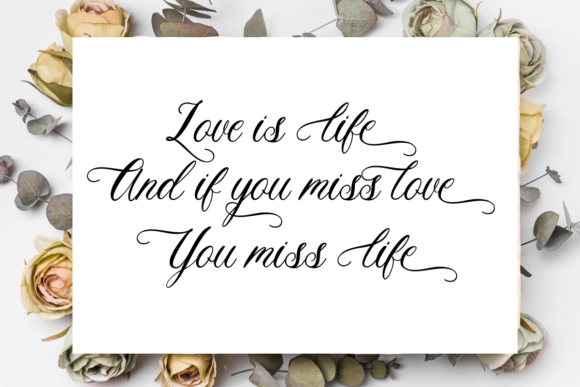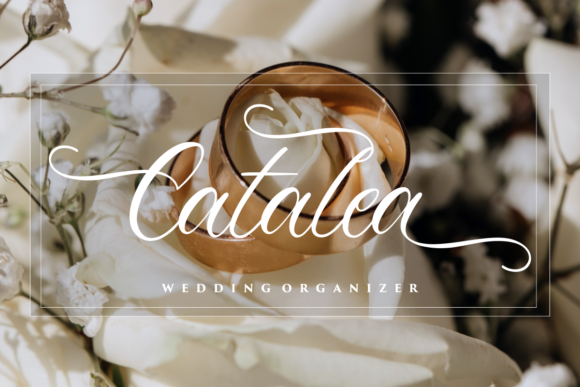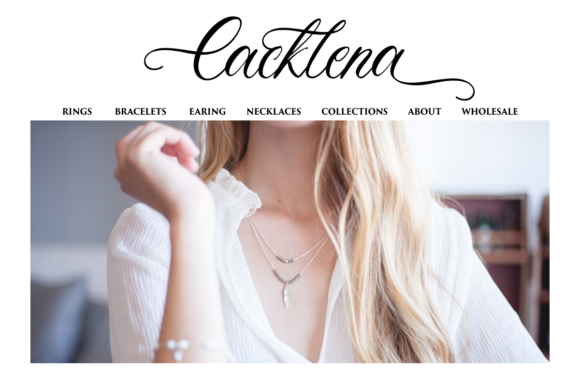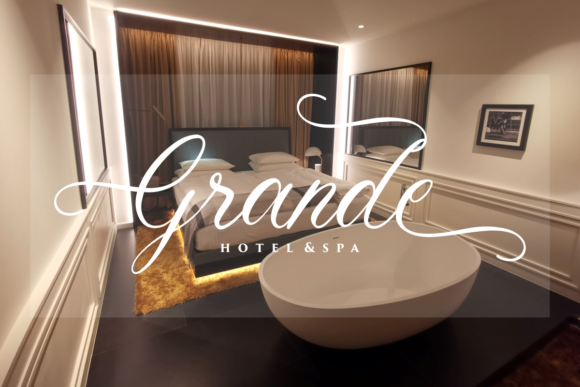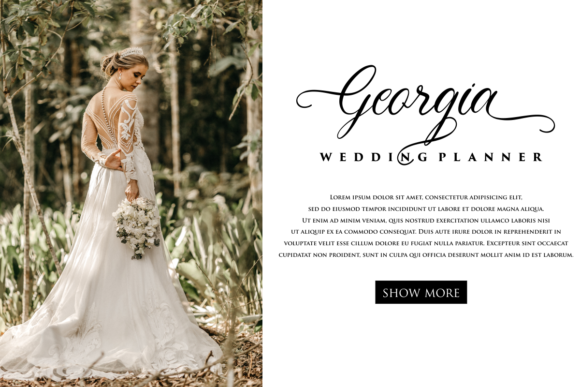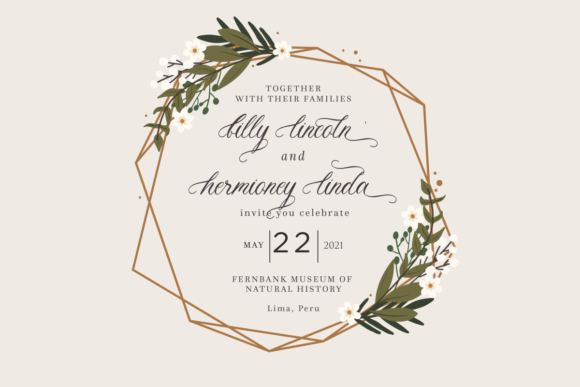
The Elusive Perfect Font: My Encounter with Chriselda
I’ll never forget the frustration of working on a design project, hours spent scrolling through font libraries, and yet, none seemed to fit the vibe I was going for. My client wanted something elegant, flowing, and delicate – a font that would make their brand stand out without overpowering it. That’s when I stumbled upon Chriselda, a beautiful handwritten font that has since become a staple in my design toolkit.
A First Impression: What I Love About Chriselda
Chriselda is a delicate, elegant, and flowing handwritten font that has won my heart with its beautiful and well-balanced characters. Here are a few things I love about it:
- ✨ Elegant and Refined: Chriselda exudes sophistication, making it perfect for high-end branding, wedding invitations, or luxury product packaging.
- ✅ Versatile: Its balanced design means it can be paired with a wide range of styles, from minimalist to ornate.
- 💡 PUA Encoded: Being PUA encoded means I can access all the glyphs and swashes easily, giving my designs that extra creative flair.
The Not-So-Perfect: A Few Quirks
No font is perfect, and Chriselda has a couple of minor limitations:
- ⚠️ Limited Use in Body Text: While Chriselda shines in headings and titles, its delicate nature might not be ideal for long body text.
- 🤔 Requires Some Learning Curve: For those new to using OpenType features or glyphs, there might be a bit of a learning curve to unlock its full potential.
The Story Behind Chriselda: A Designer’s Inspiration
Chriselda was created with the intention of bringing a touch of elegance and sophistication to designs. Inspired by classic calligraphy and modern handwriting techniques, its designer aimed to craft a font that feels both personal and luxurious. Whether it’s used for wedding stationery, branding, or packaging, Chriselda brings a level of refinement that elevates any project.
| Is Chriselda suitable for body text? | While Chriselda is primarily designed for headings and titles, its readability makes it usable for short paragraphs. However, for extensive body text, a more straightforward font might be preferable. |
| Does Chriselda support OpenType features? | Yes, Chriselda is PUA encoded, allowing easy access to glyphs, swashes, and other OpenType features in compatible software. |
Chriselda has undoubtedly become a favorite in my design arsenal, and I hope this guide helps you unlock its full potential in your creative projects. Its elegance, versatility, and the ease of access to its OpenType features make it a valuable asset for any designer looking to add a touch of sophistication to their work.